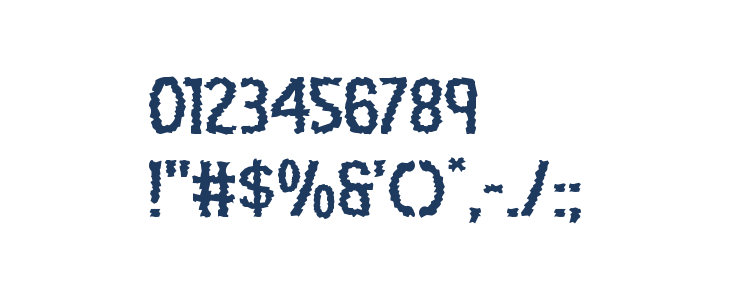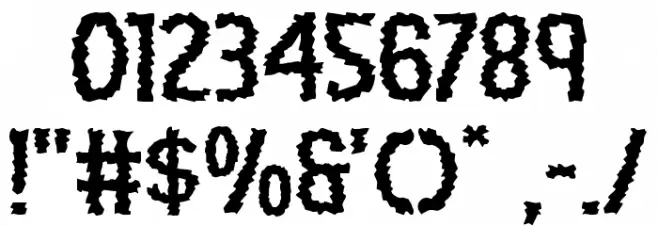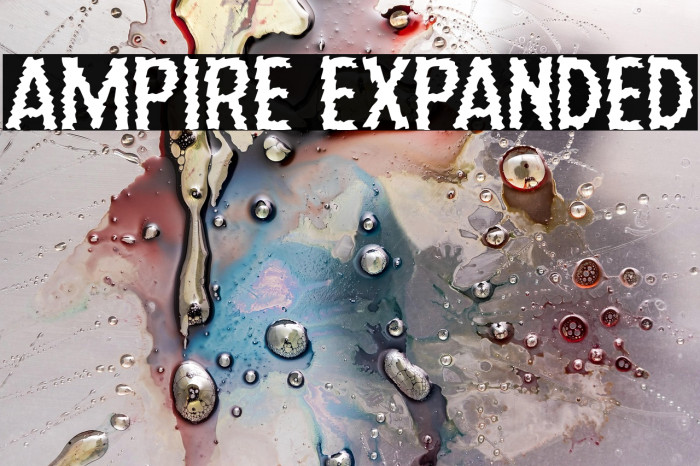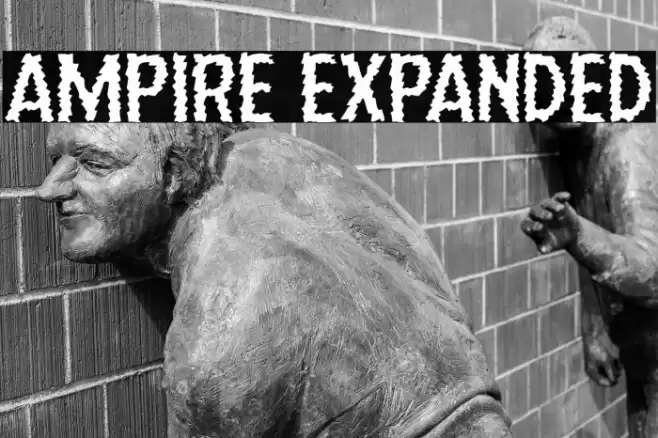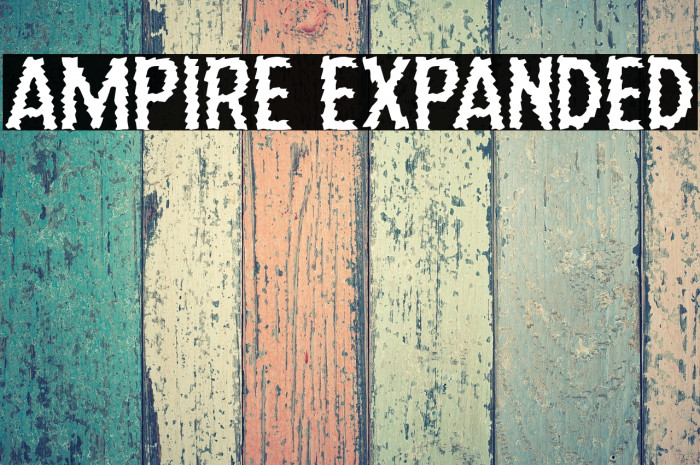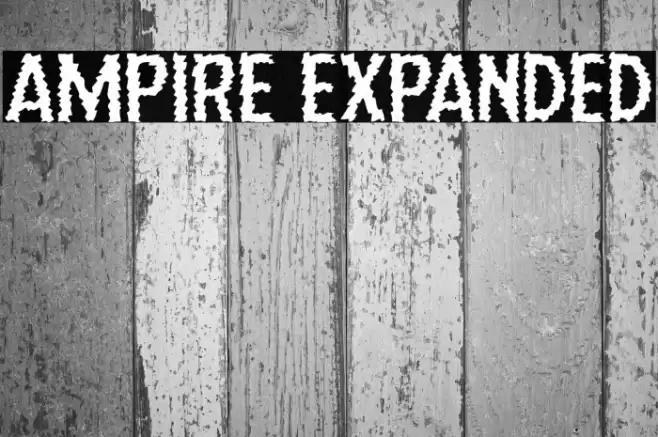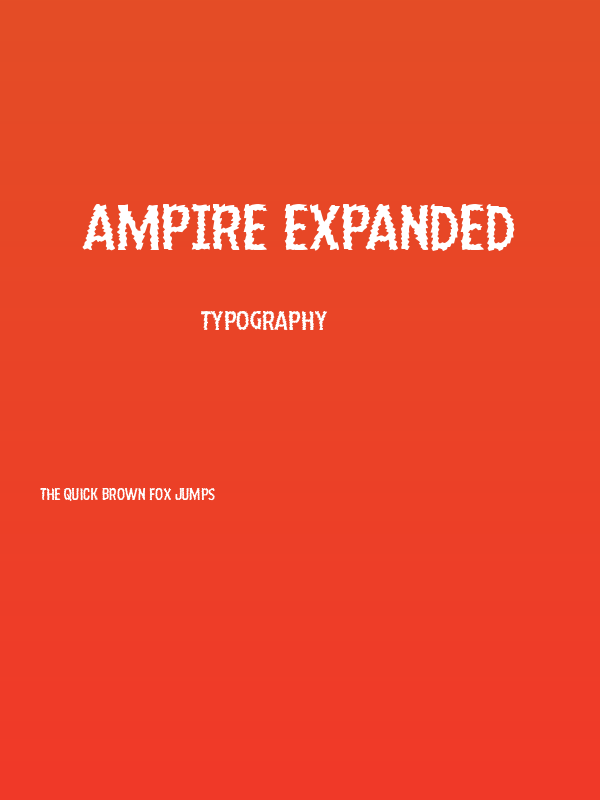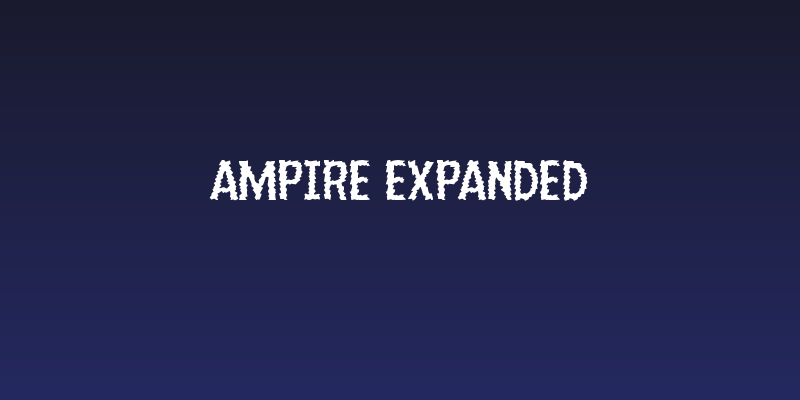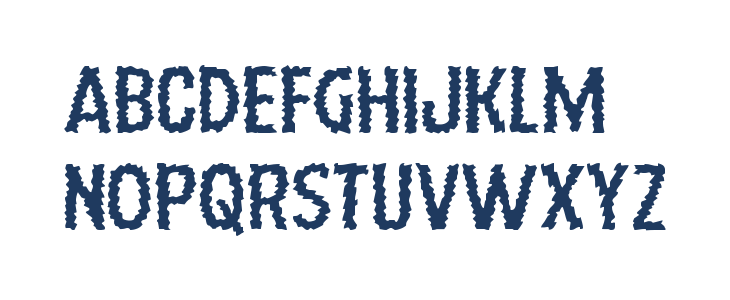
Ampire Expanded Font
Ampire Expanded Description
This font features a bold, jagged design that gives it a unique and edgy appearance. The characters are sharply defined with irregular edges, creating a sense of movement and energy. This style is reminiscent of a hand-cut or distressed look, making it stand out in any design. The uppercase and lowercase letters maintain a consistent height, while the numbers and special characters follow the same jagged pattern, ensuring uniformity across all text. The font's expanded width adds to its bold presence, making it ideal for attention-grabbing headlines or artistic projects.
Proposed ProjectsIdeal for posters, album covers, branding for edgy or alternative products, and any design requiring a bold statement.